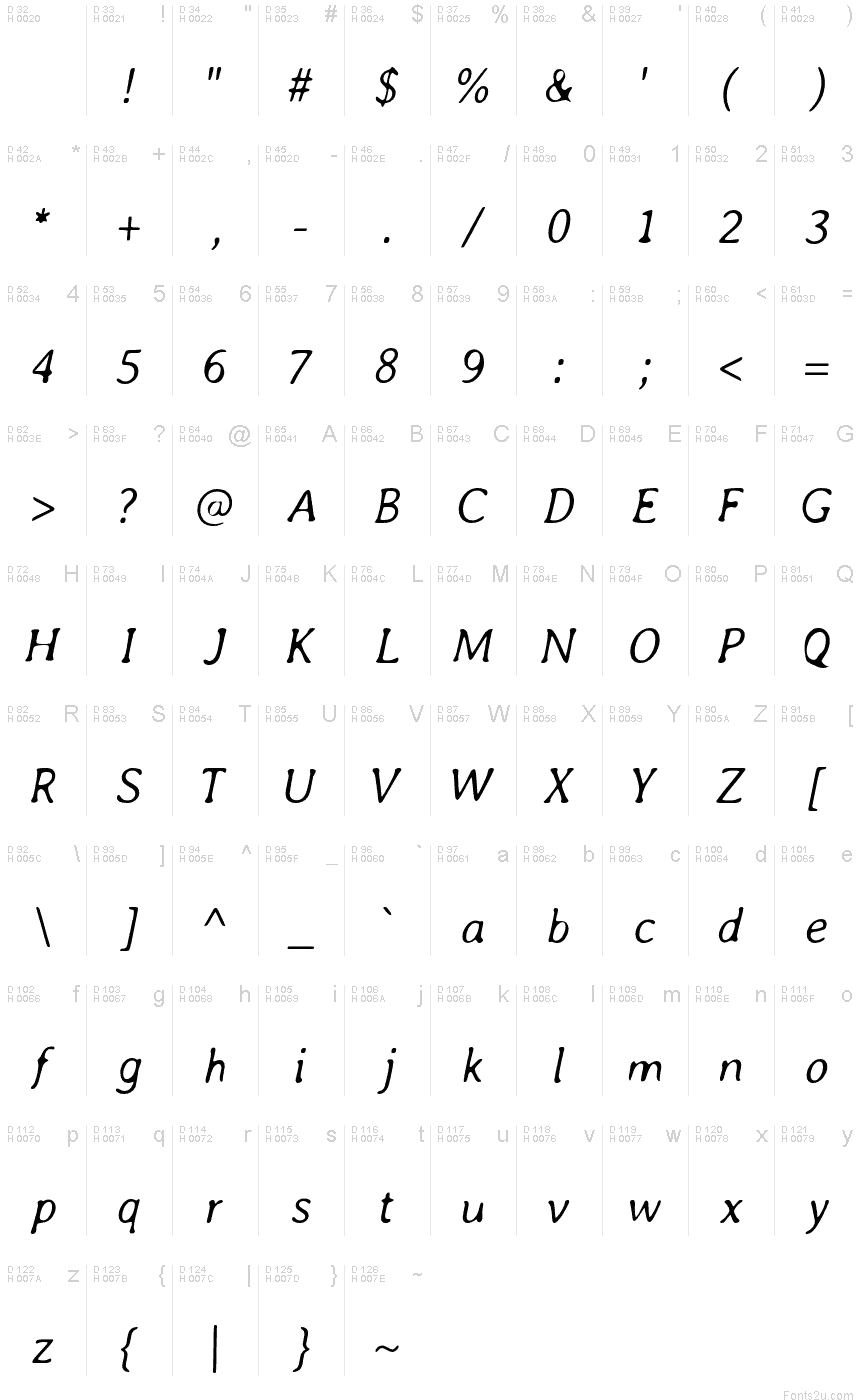
Averia-LightItalic
Averia Light Italic by Dan Sayers of iotic.com is a free serif font with softly uneven contours and a loose, gently slanted stance. Tapered strokes and small, flared serifs look drawn rather than mechanically finished.
Those organic shapes echo inked illustration, making the font a fit for book covers, literary posters, and artisan packaging. In restaurant branding, the lettering can become part of a hand-painted sign or label, especially for cafes and bakeries seeking an informal, old-world note.
Avera was created as the average of all fonts on a computer, a total of 725 fonts. More details are available at: